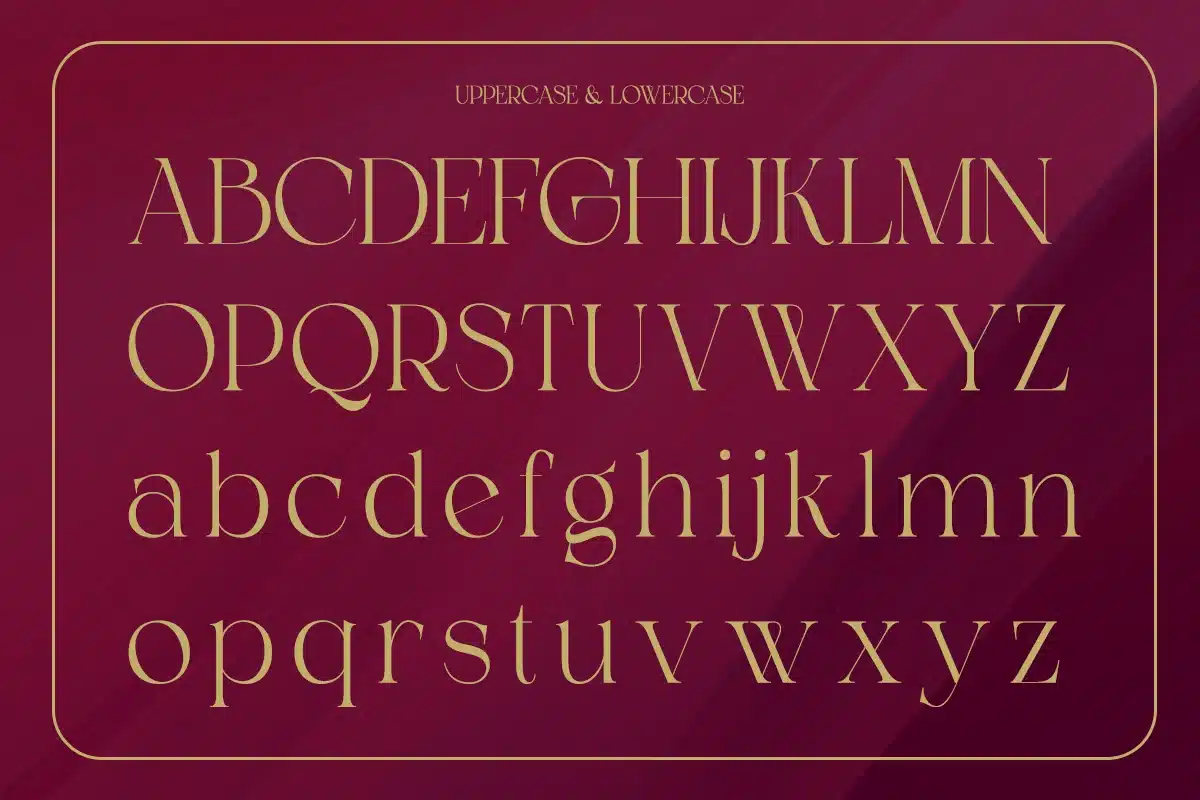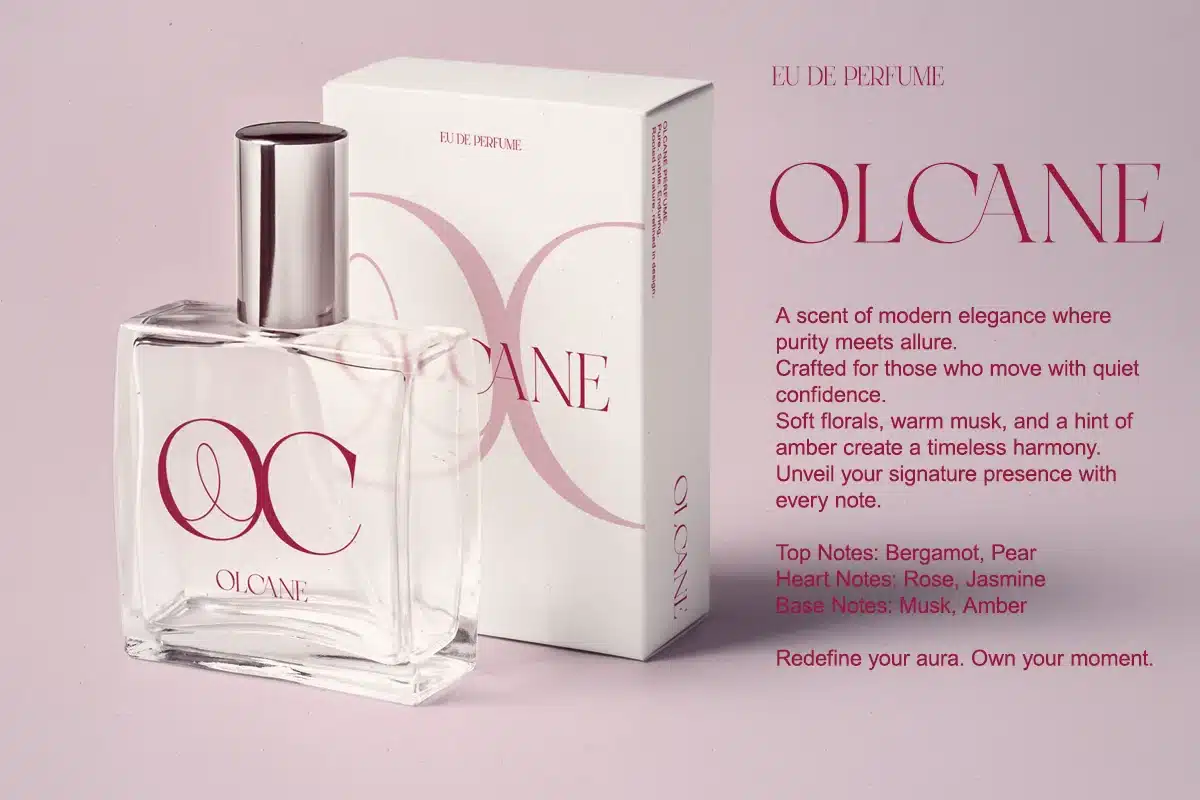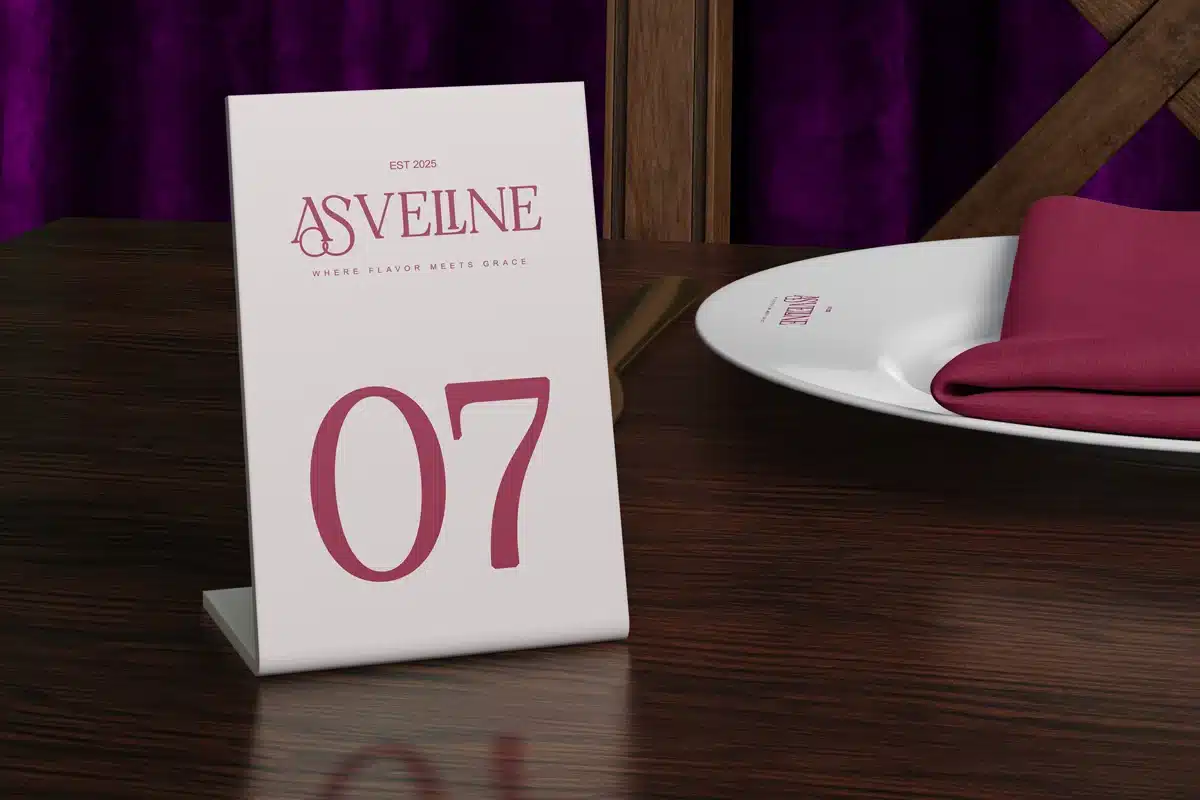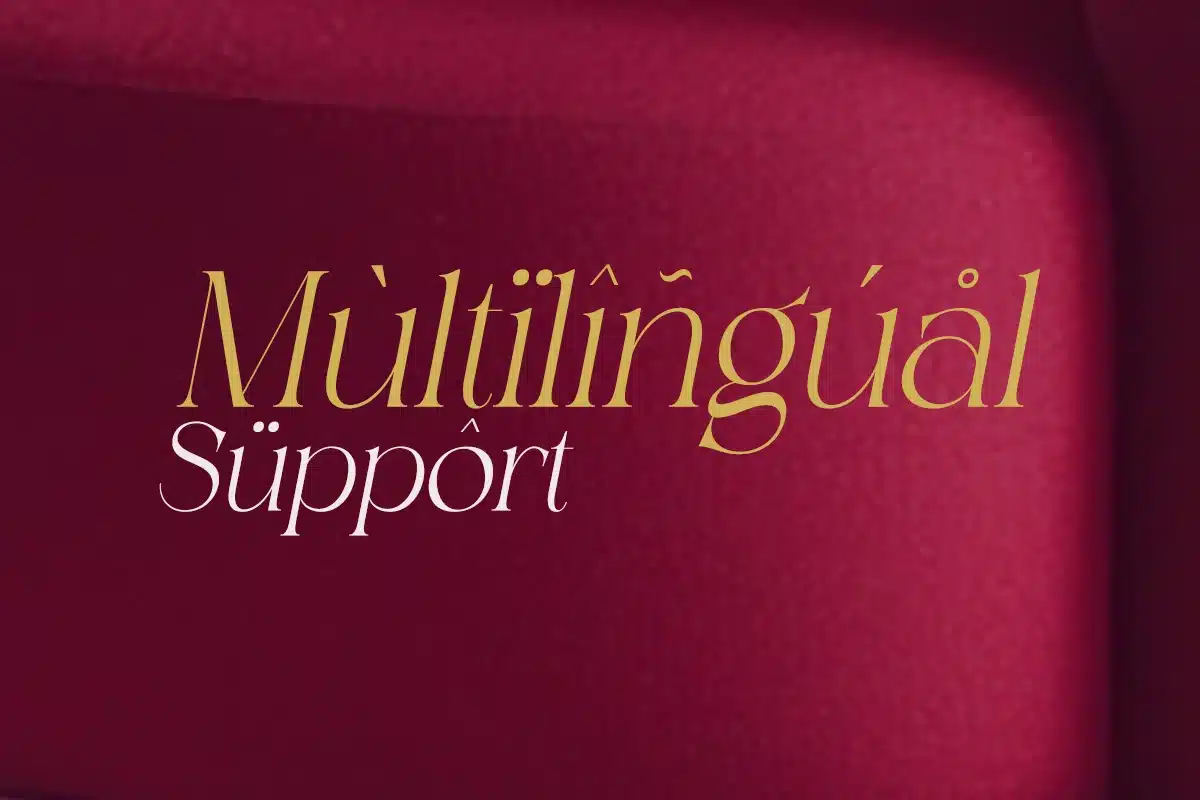
Shealth – Classic Modern Serif Ligatures Branding Font
Shealth is a classic serif font designed with a modern and elegant touch.
Its balanced proportions and refined curves create a timeless look suitable for professional and premium design projects.
Perfect for designers who need a serif typeface that feels classic yet relevant, Shealth works beautifully across branding, editorial layouts, and print design.
Features
- Modern & Italic
- Uppercase & lowercase
- Elegant serif construction
- Alternates & ligatures
- Professional kerning
Luxury branding, editorial design, magazine layouts, book covers, packaging, fashion identity, corporate branding, and premium print projects.